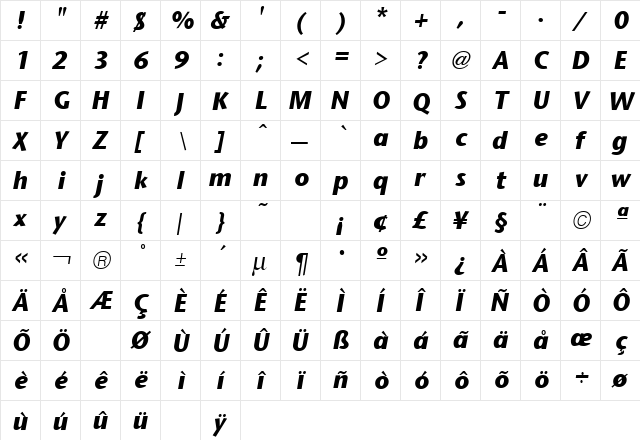
Stone Bold Italic
Design Context for Stone Typeface
Stone offers clean, dependable letterforms without strong stylistic allegiance, making it a practical choice for designers who need flexibility. The dynamic lean of this cut emphasises speed and emphasis in any layout. Its bold stroke weight gives it real presence on the page.
Pro Tip: Use Stone for emphasis, pull quotes, and subheadings where its slanted energy can add rhythm to the layout.